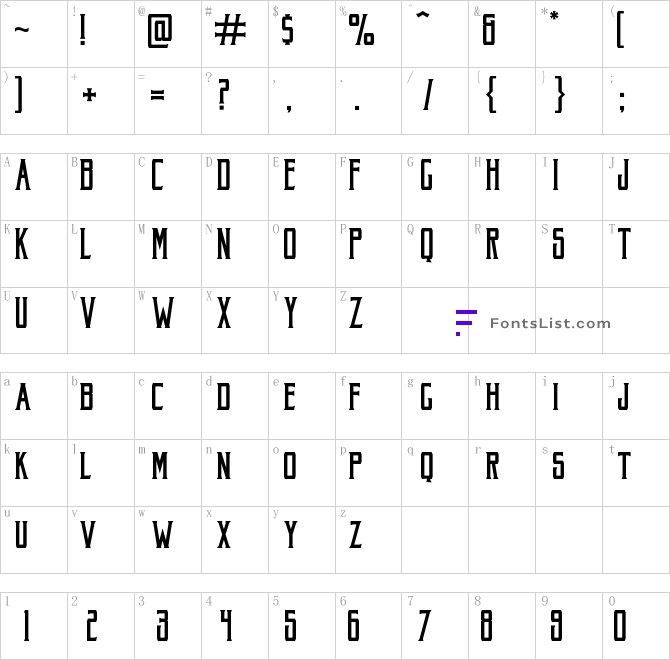
- Font Name:Akura Popo
AkuraPopo.otf is a very beautiful artistic font, AkuraPopo.otf is widely used in the design and printing of various books and pictures,AkuraPopo.otf has a strong visual impact,AkuraPopo.otf is a commonly used font in newspapers, magazines and books, and is used in posters, e-commerce Poster design, store design, logo design, font design and other fields.AkuraPopo.